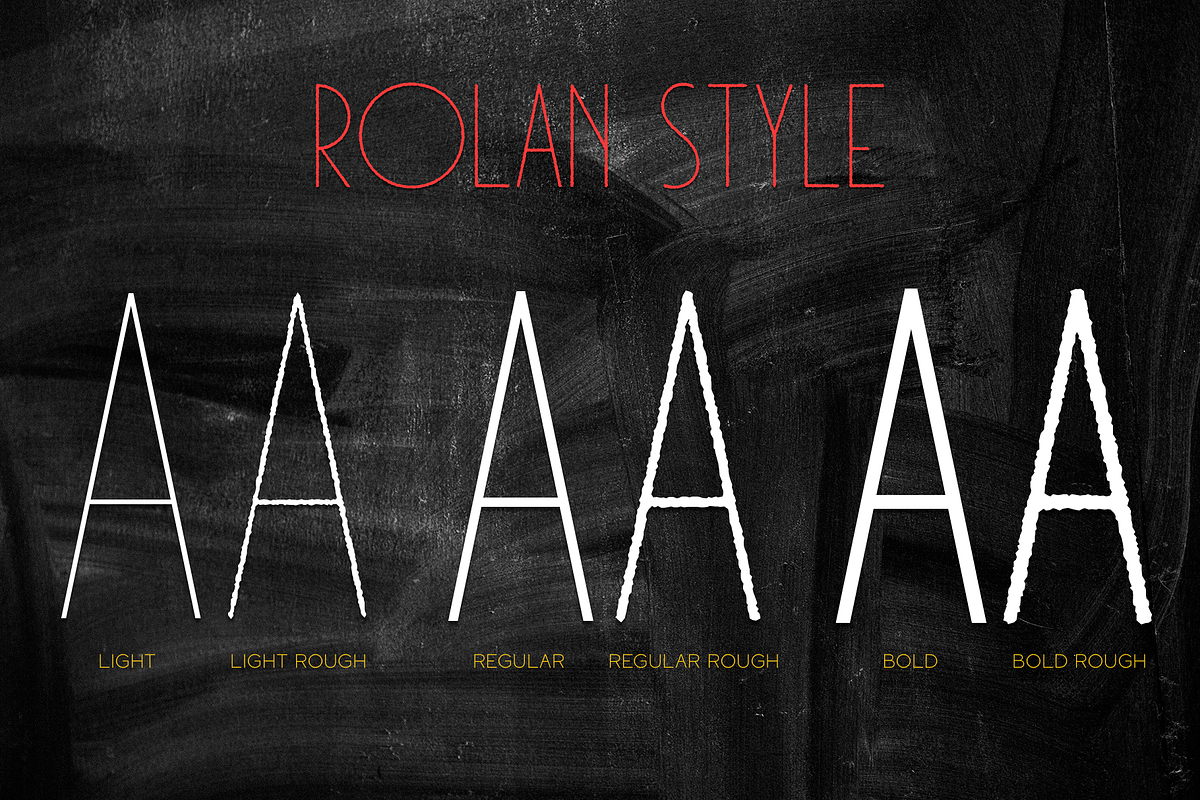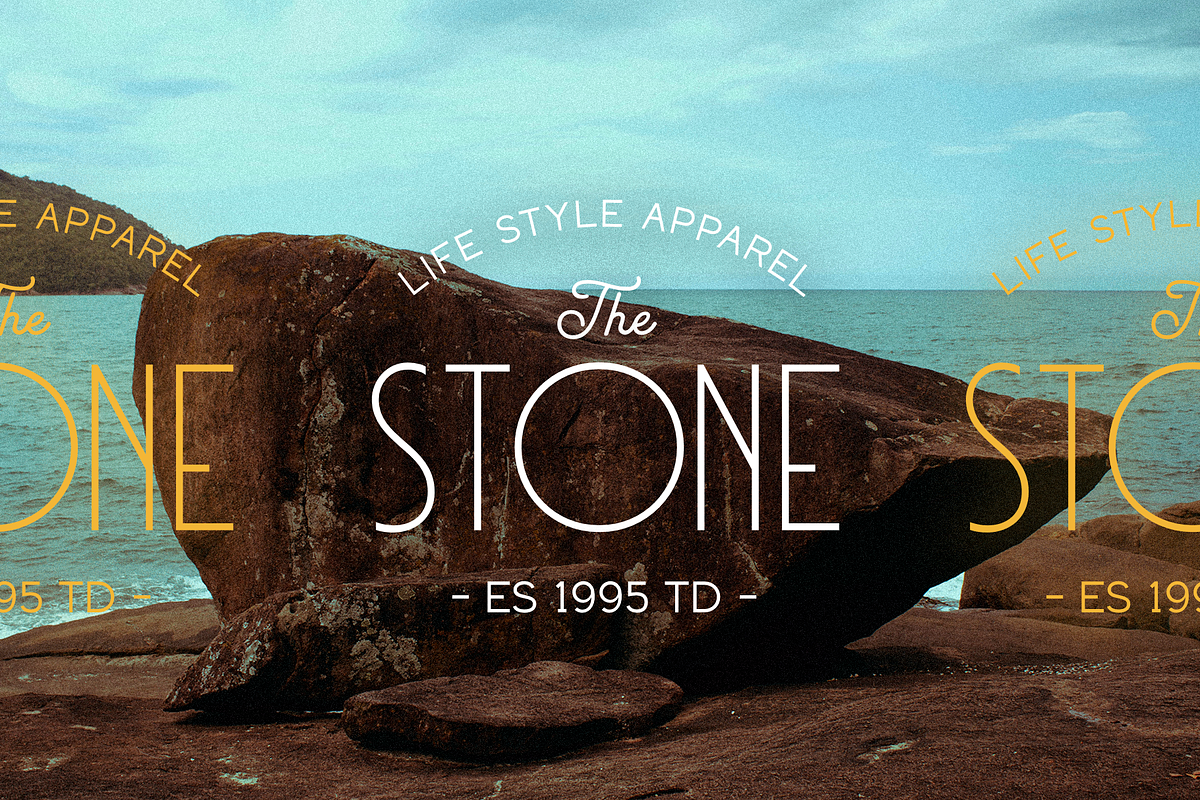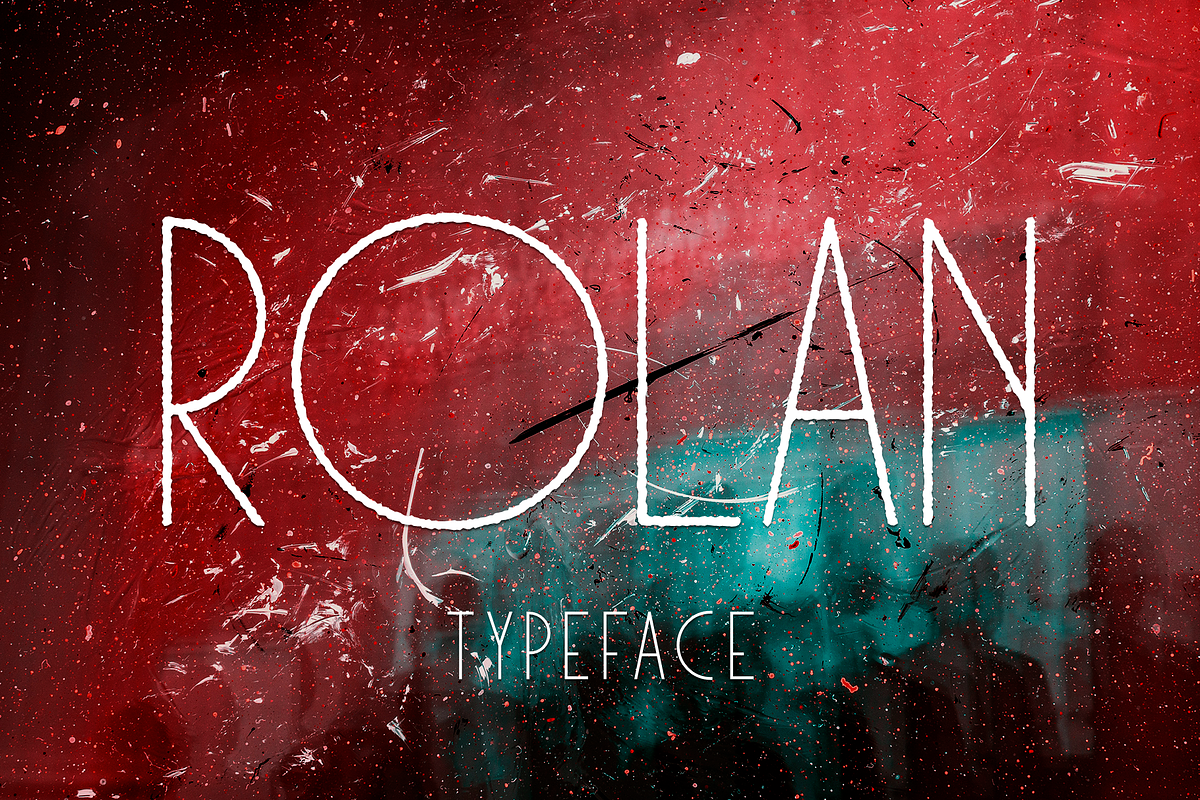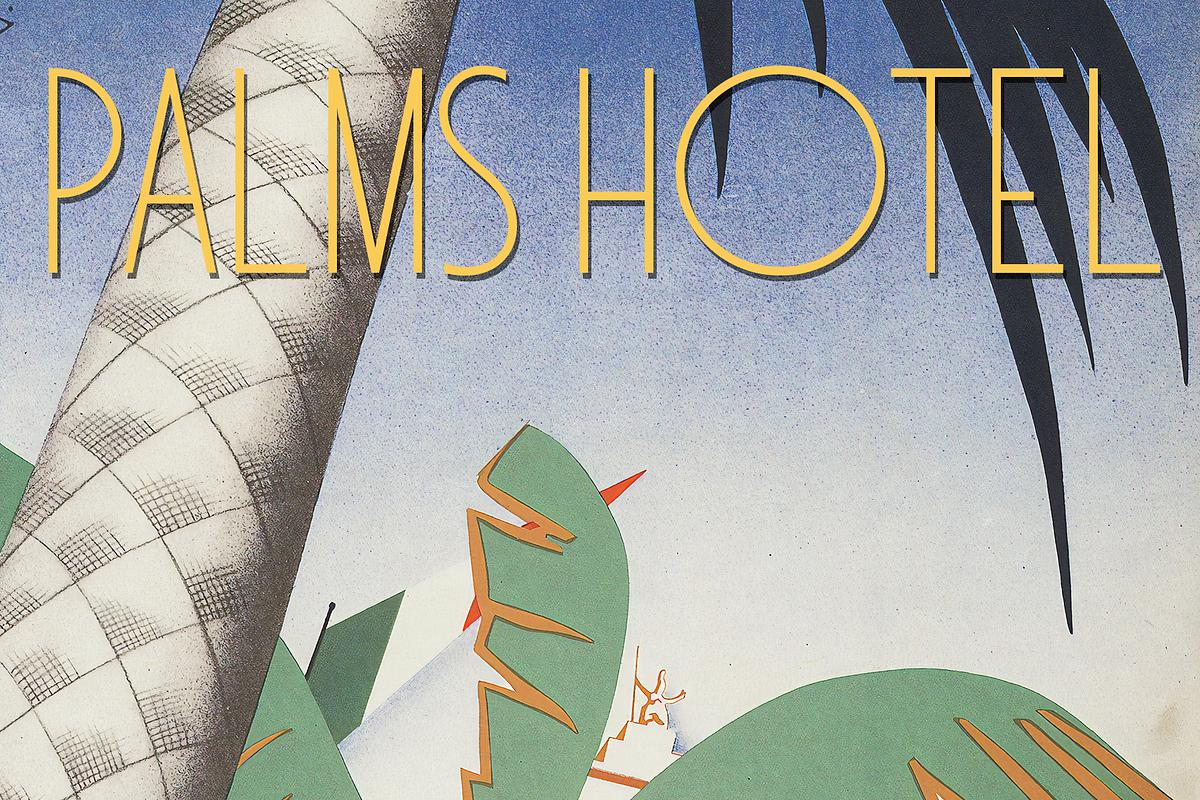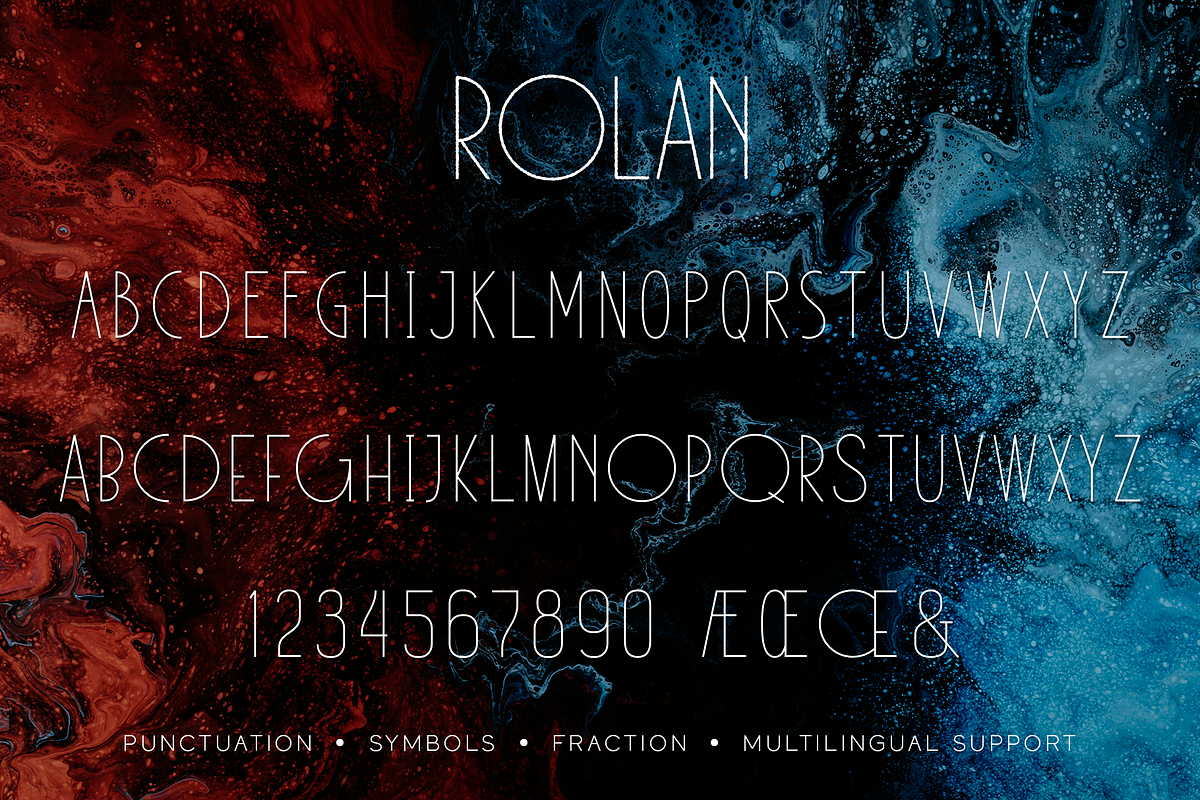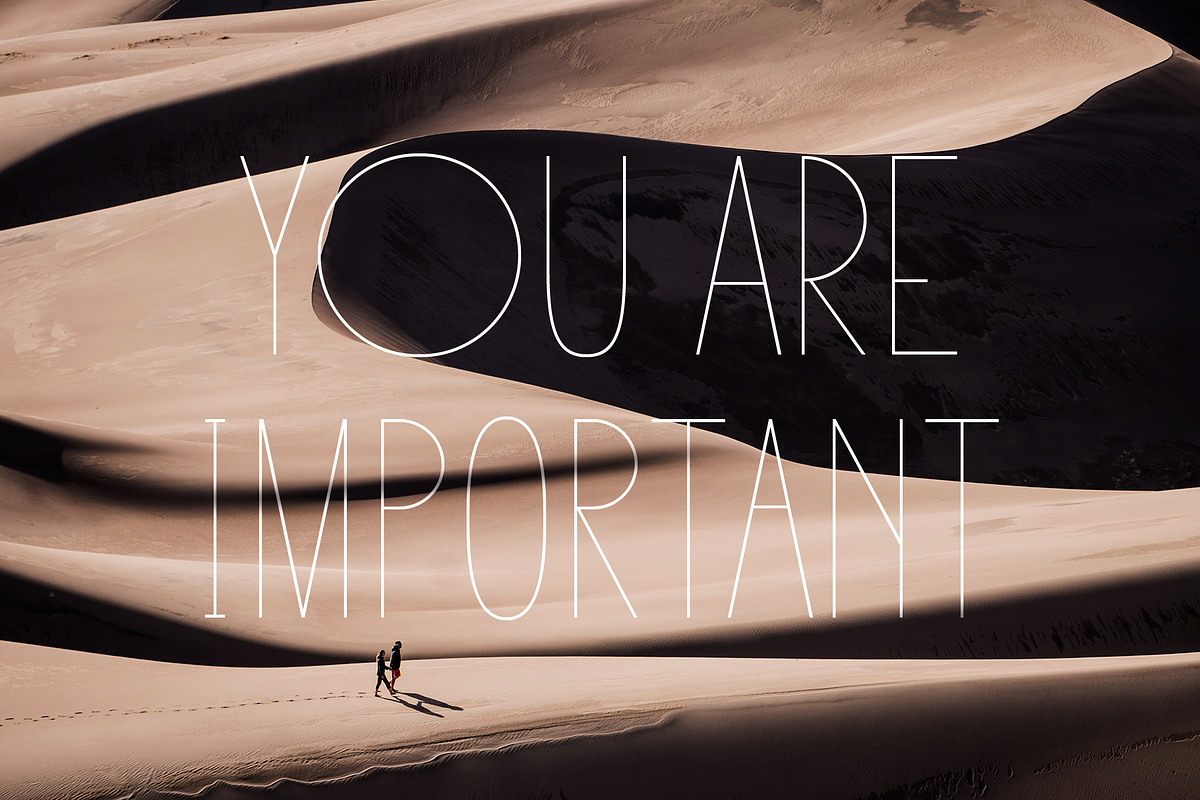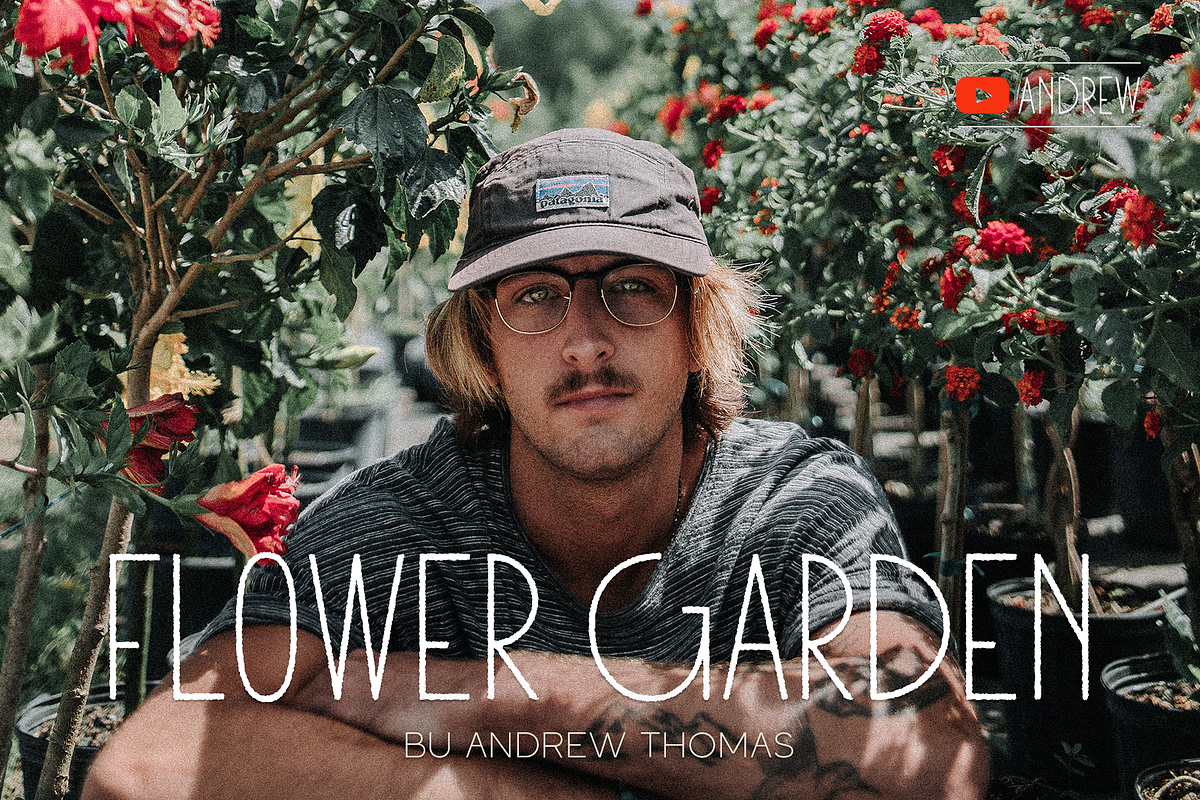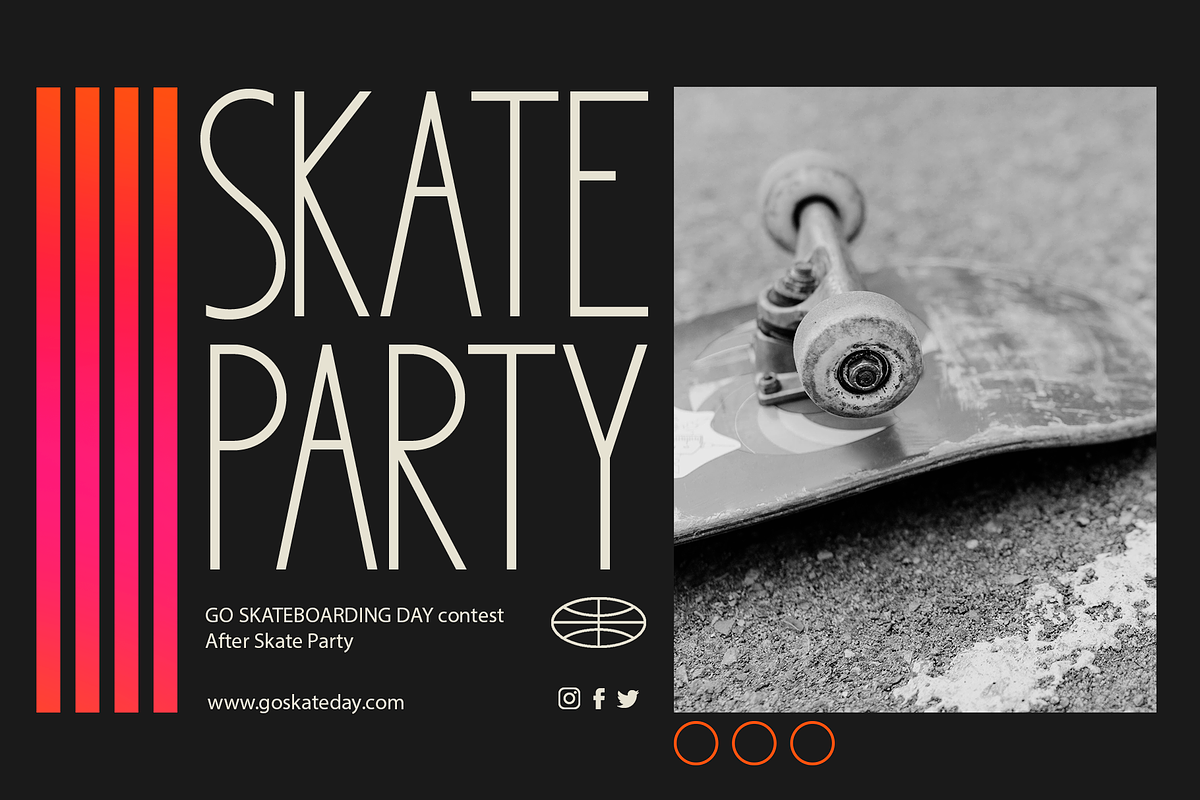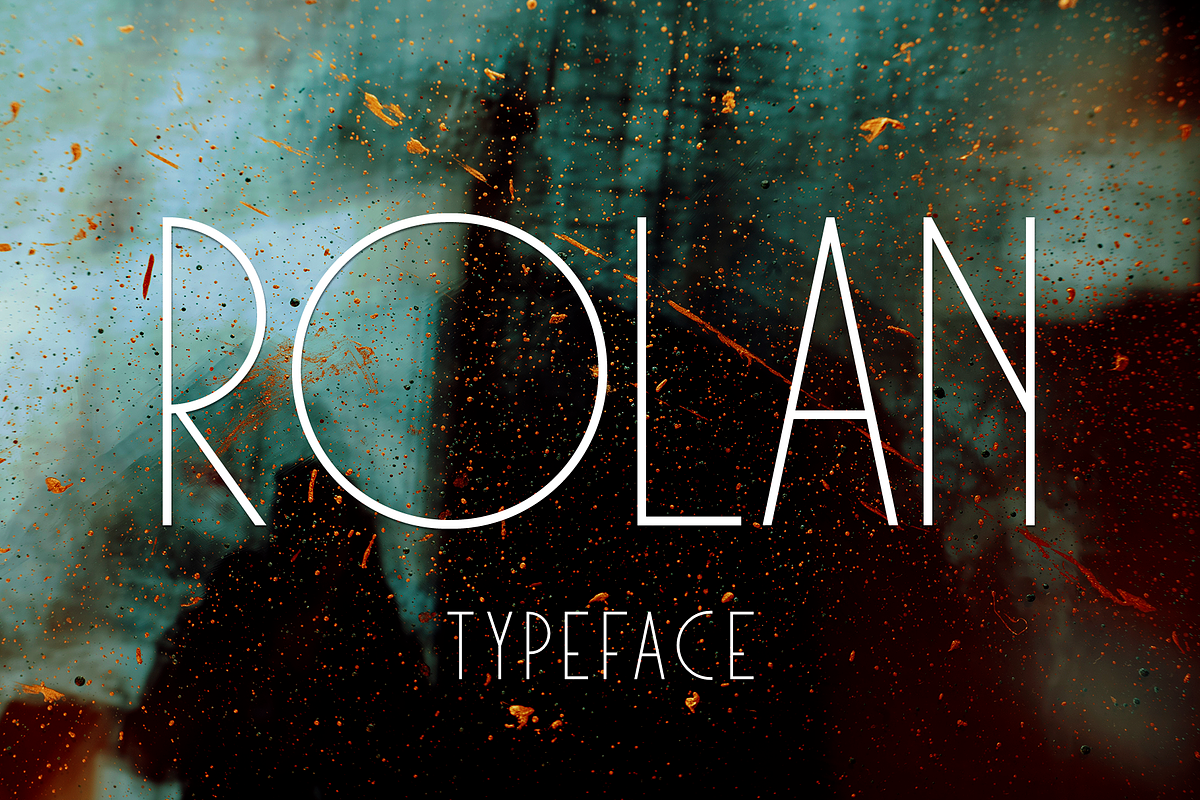
Rolan
Rolan This is a light elongated font that includes light, regular and bold weights, as well as these weights in a rough style. It is versatile and will perfectly fit into any project in both modern and vintage style, it is perfect for creating a logo, banners, flyers, labels, branding and much more This font family has only Capital letters and some of them are different.
Following international symbols support: ÀÁÂÃÄÅĄÇĆÈÉÊËĘÌÍÎÏÐÑŃŁÒÓÔÕÖØÙÚÛÜŚŠŸÝŹŻŽßàáâãäåçèéêëìíîïðñòóôõöøùúûüýÿąćęłńśšźżž
Full Capital alphabet A-Z
Numbers, fractions
Punctuation and symbols